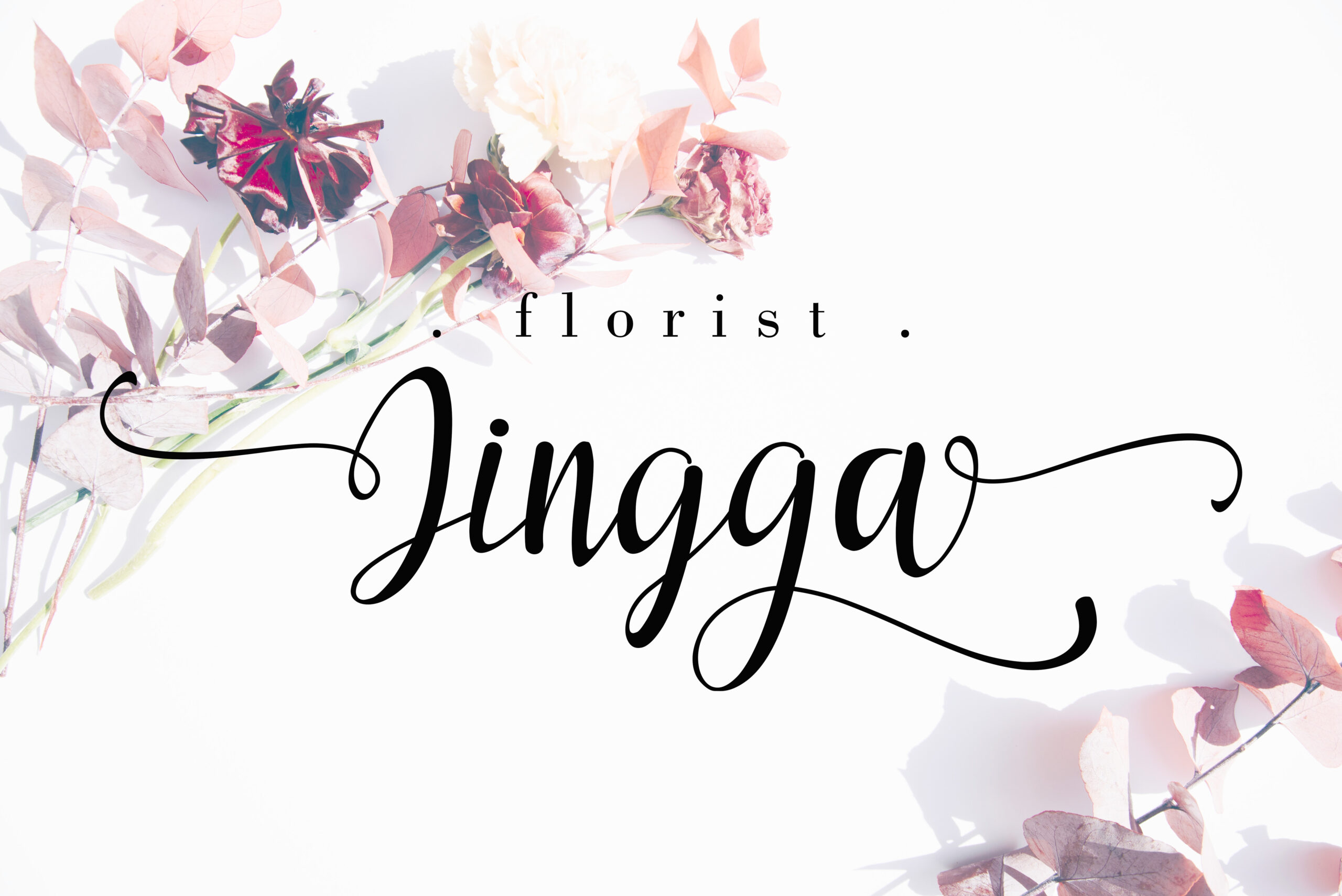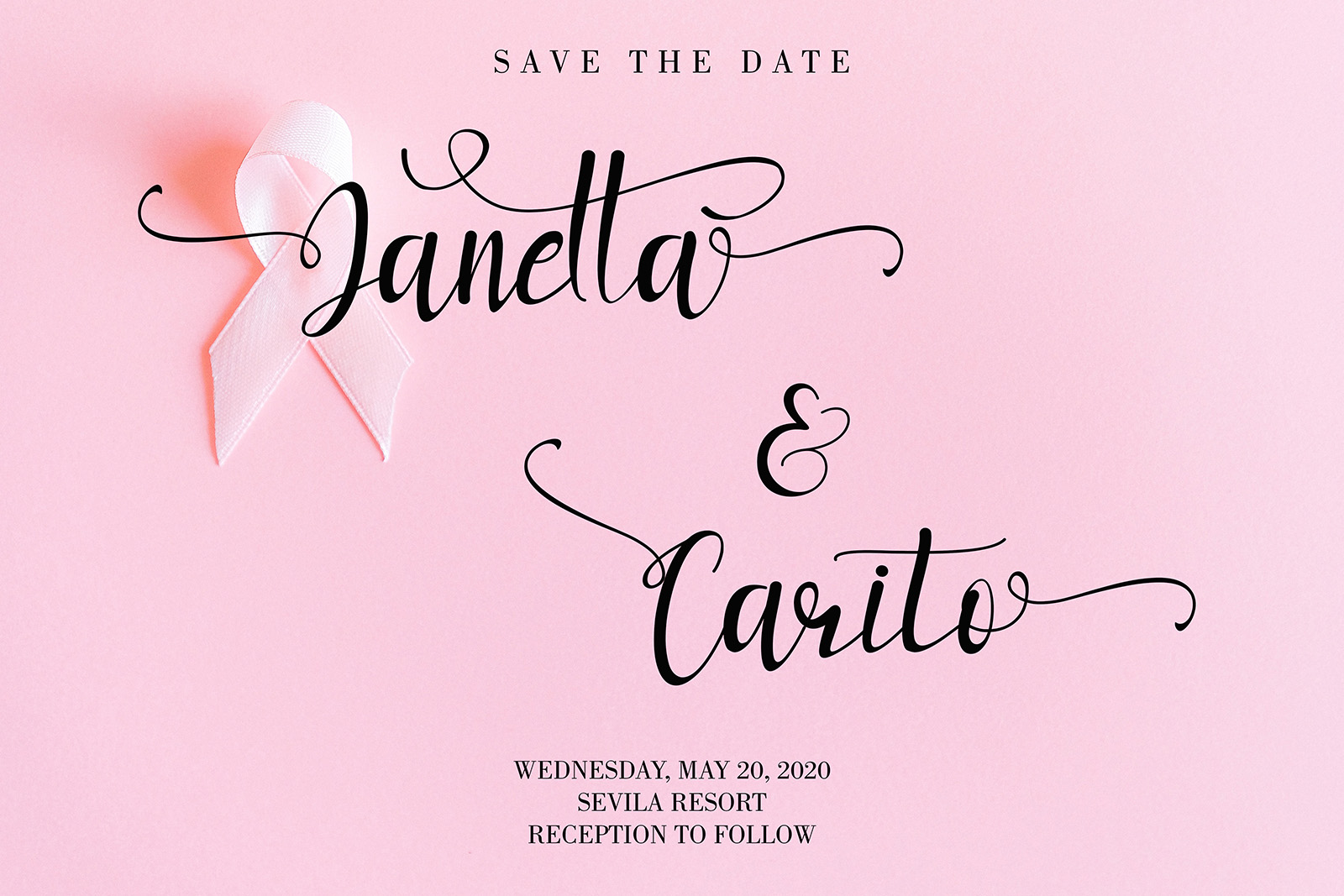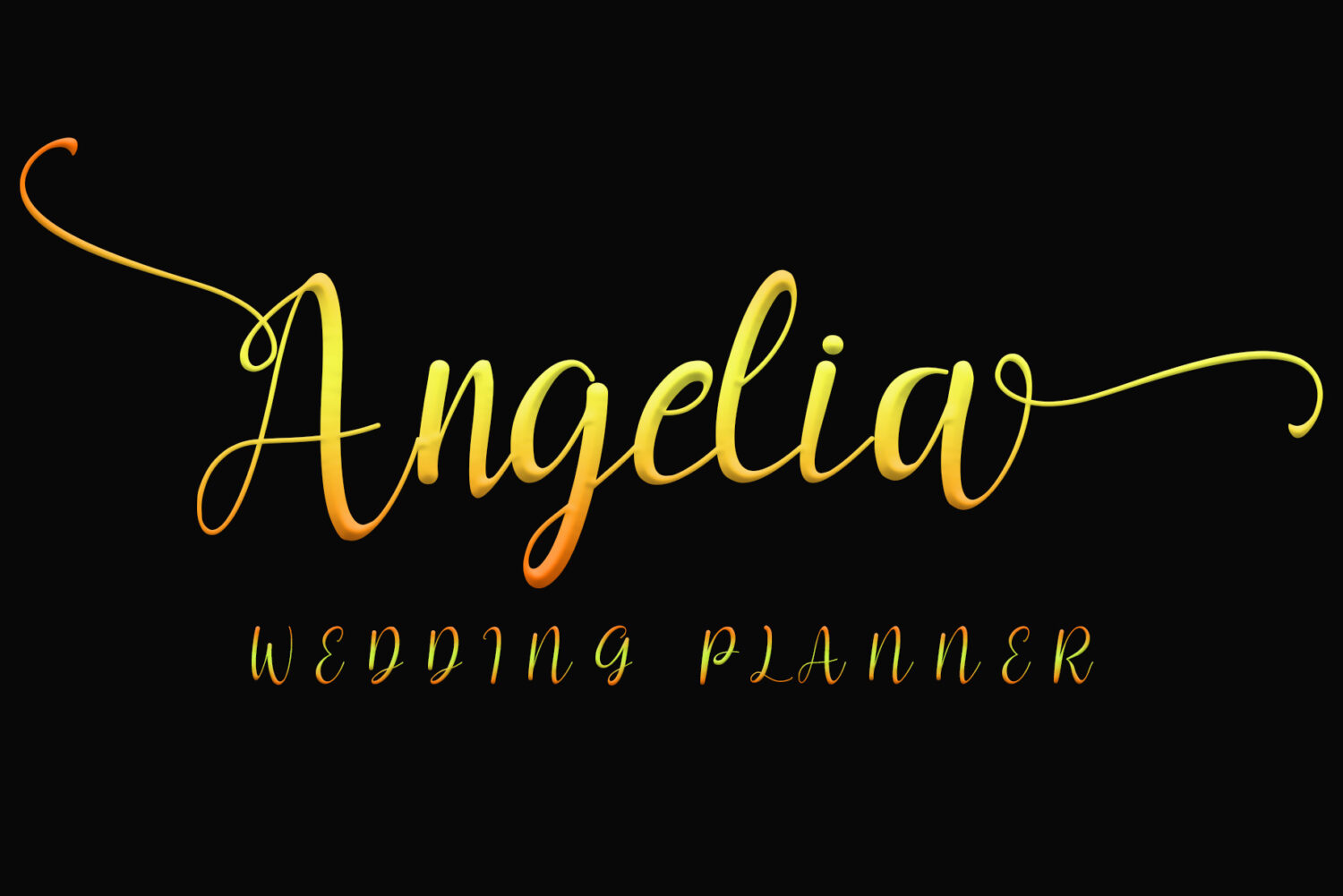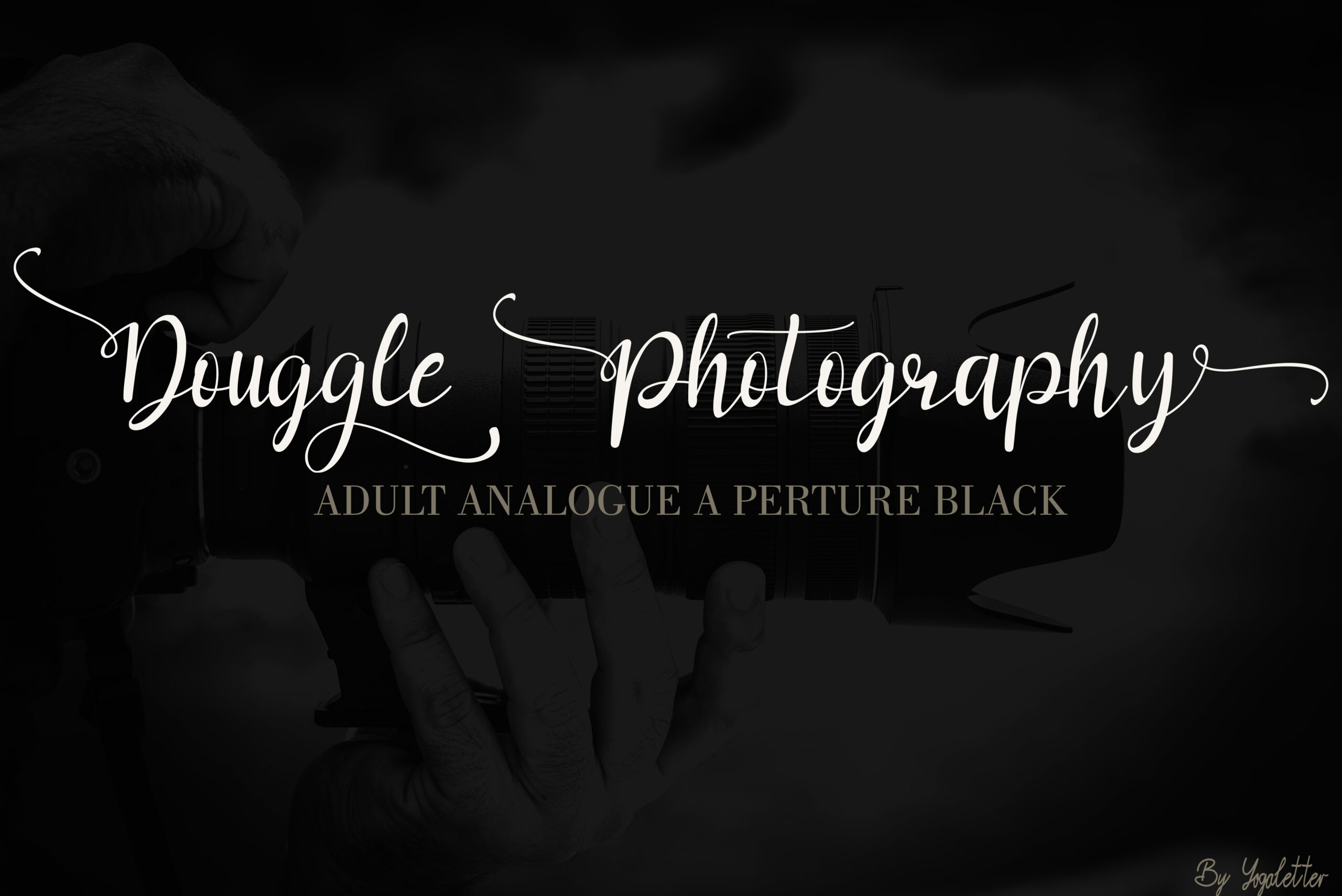
Vienetta Free Font
Vienetta Free Font is a beautiful and elegant font. This font can be used for wedding events both for invitation cards, wedding planners, writing in flower shops, or for other romantic greetings. Besides being beautiful, Vienetta is also elegant for fashion such as makeup artists and also photography. This free typeface was designed by a talented Isroni Yoga Prasetya. If you like it don’t forget to check out the full version.